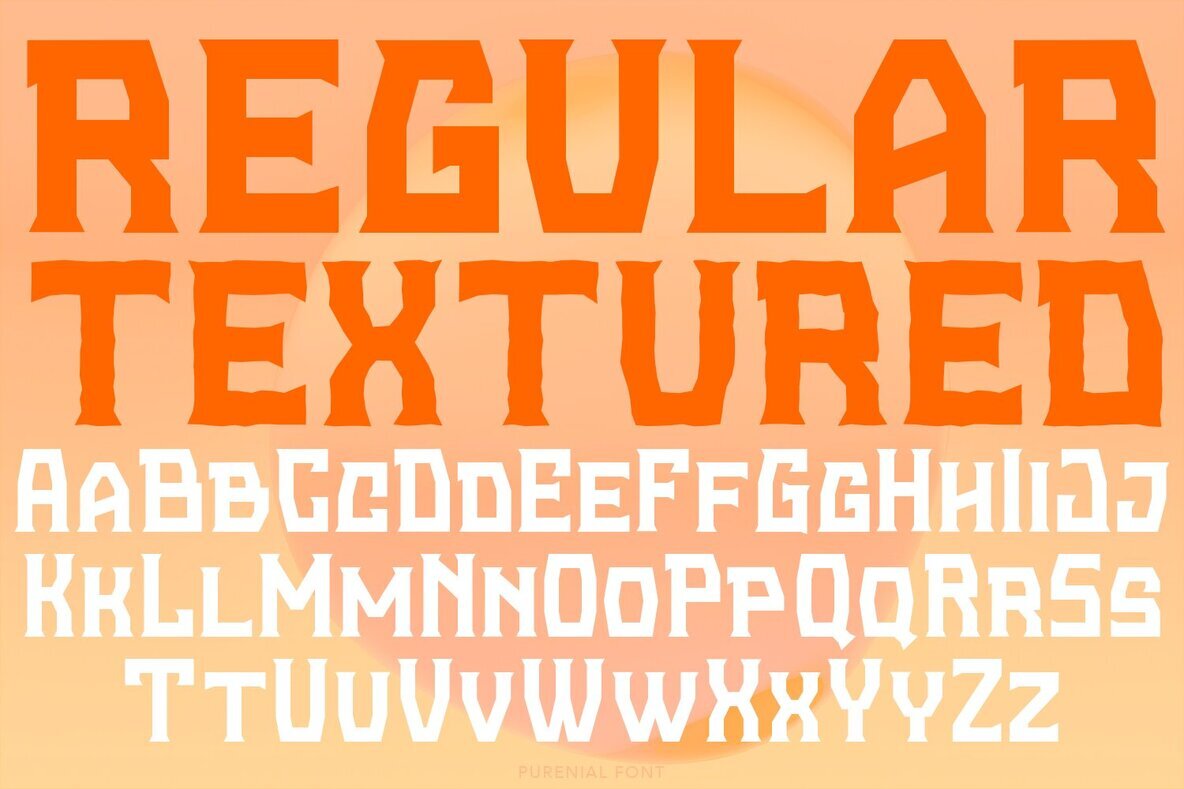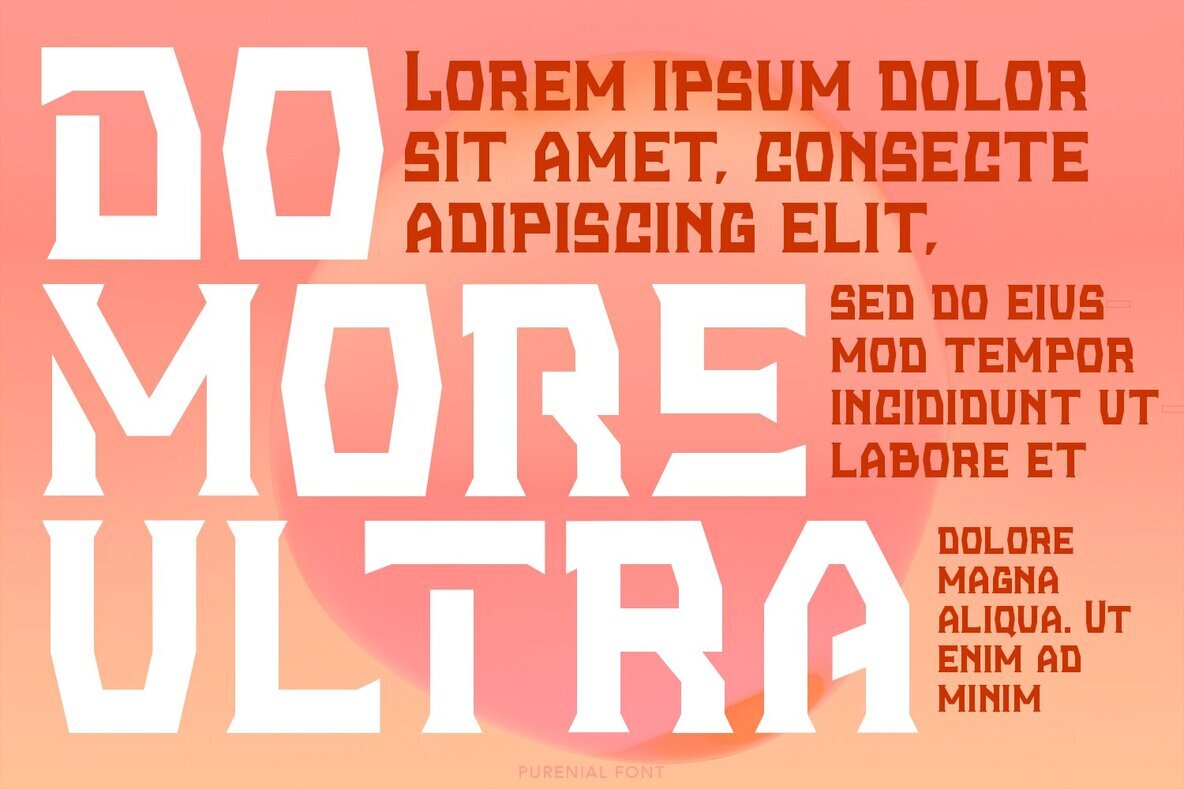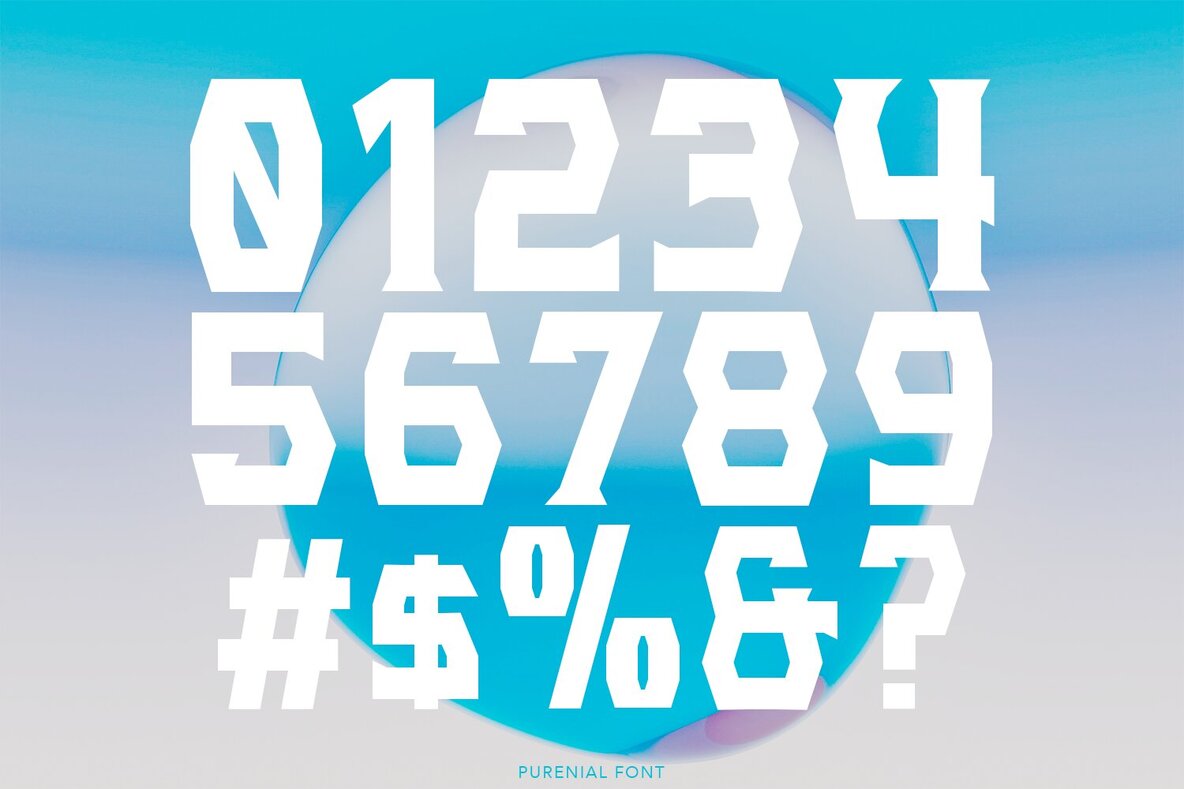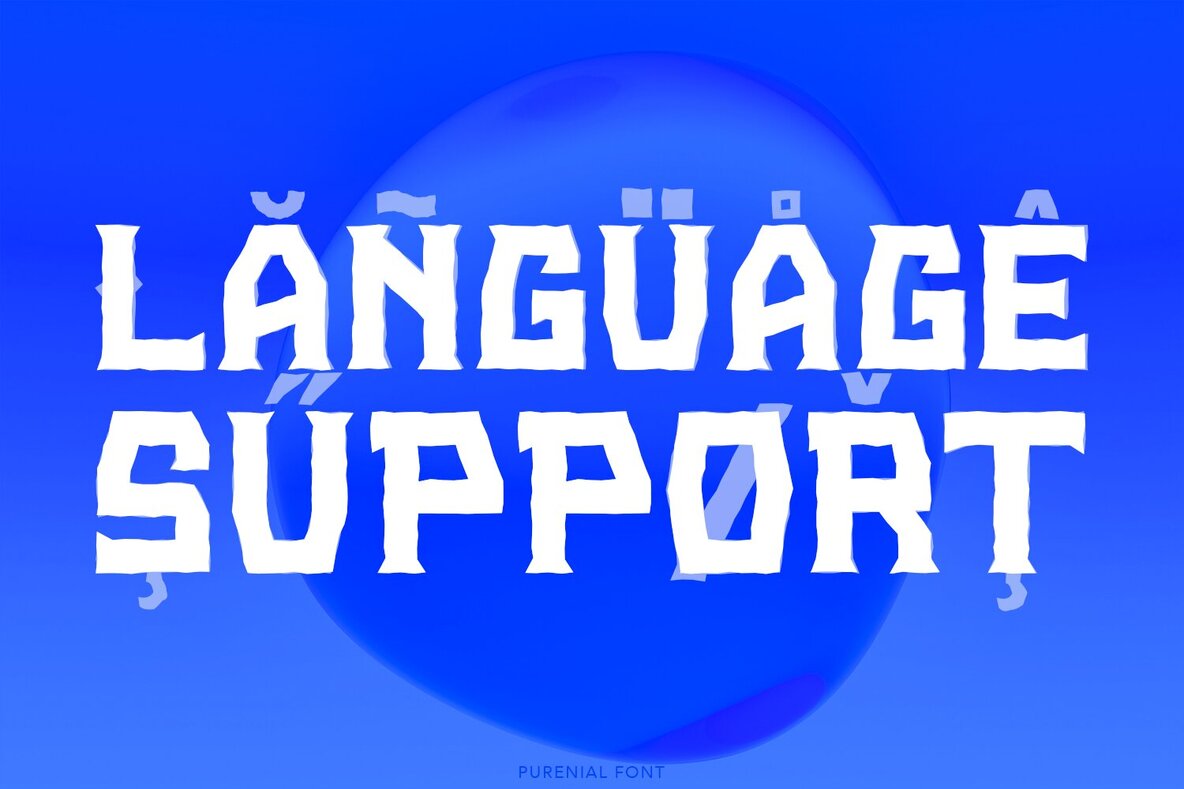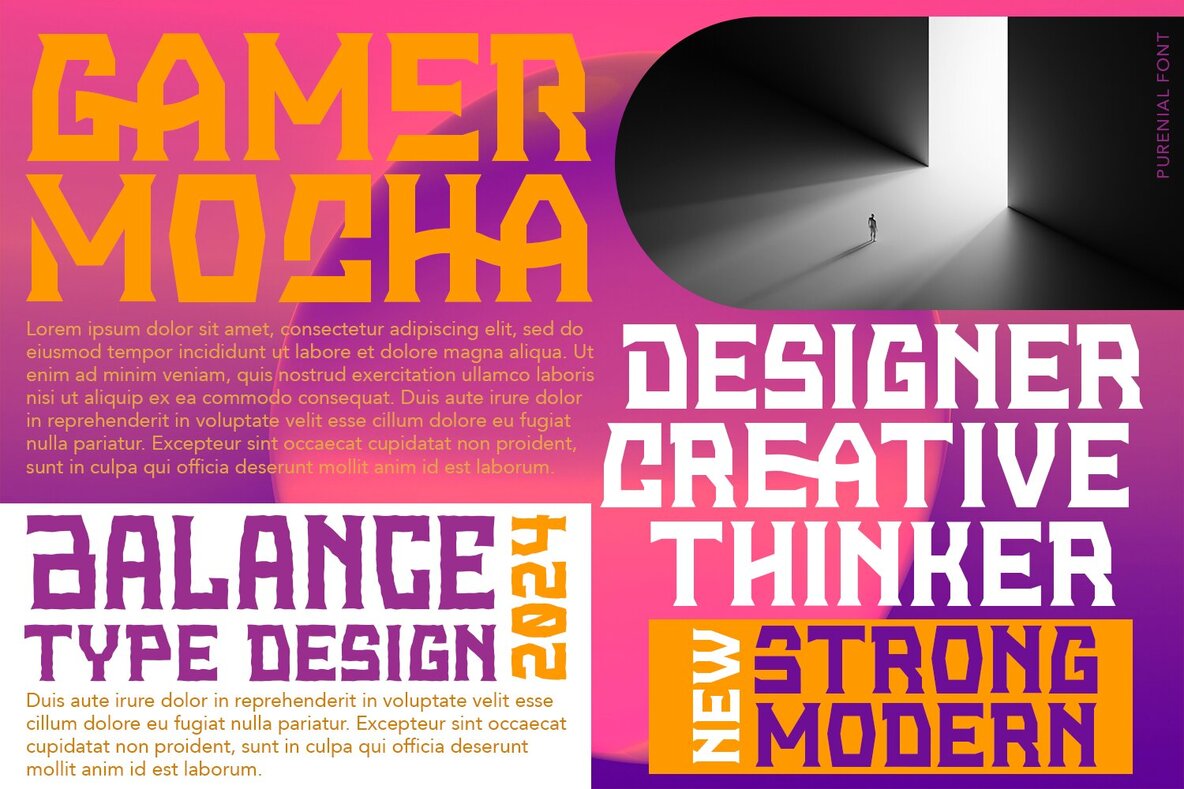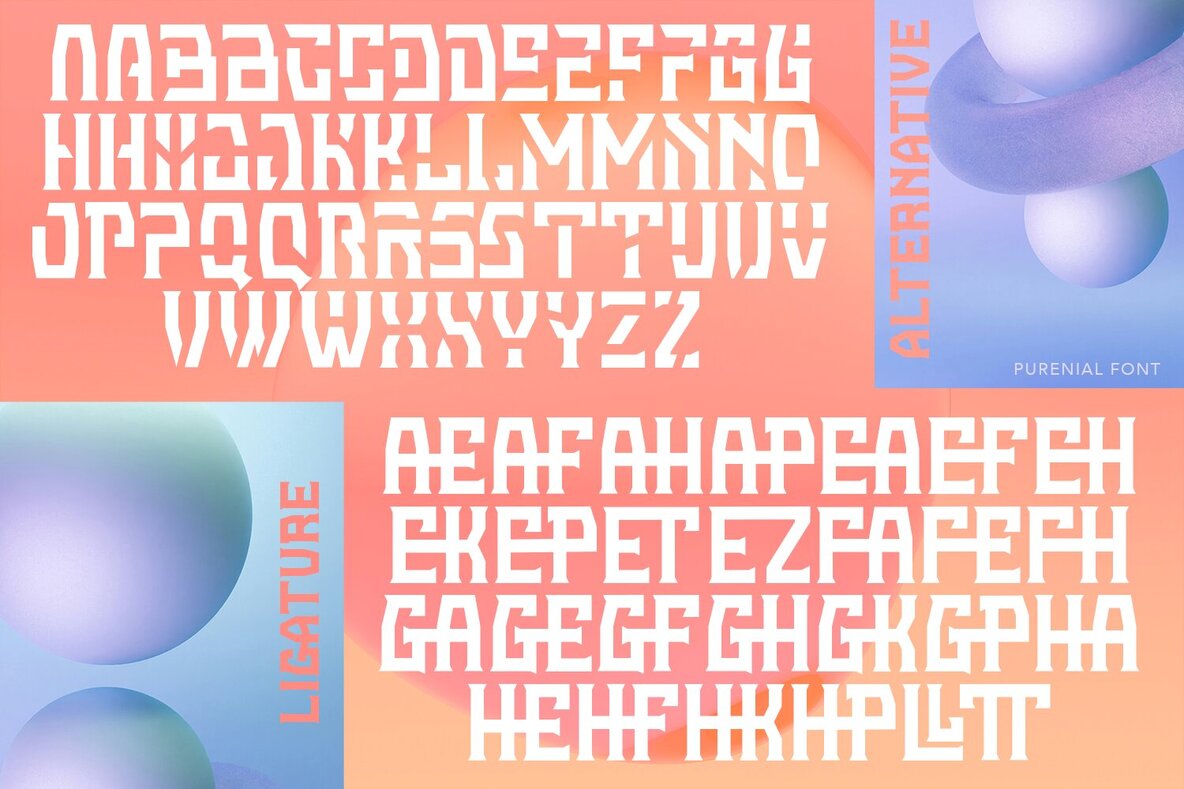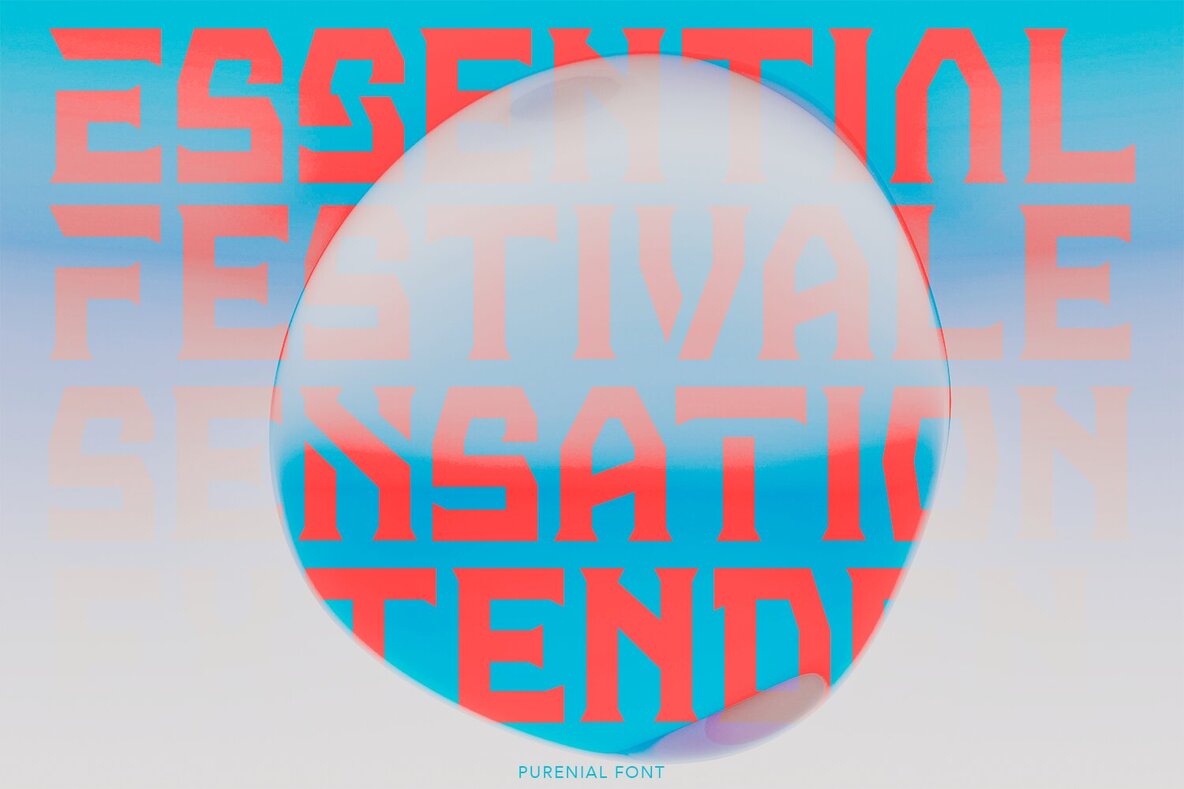
Purenial Font
Purenial is a monoline font designed to seamlessly blend elements for a cohesive, vintage aesthetic. The strong character shapes provide a robust look suitable for various design projects. Its versatility is enhanced by both clean and textured versions, allowing for adaptability across different styles.
Additionally, Purenial offers special features like stylistic alternates and ligatures, providing designers with an array of creative possibilities. This makes it an excellent choice for projects requiring a classic touch with a modern edge. Whether you're working on branding, packaging, or print design, this font ensures a distinct and professional appearance.